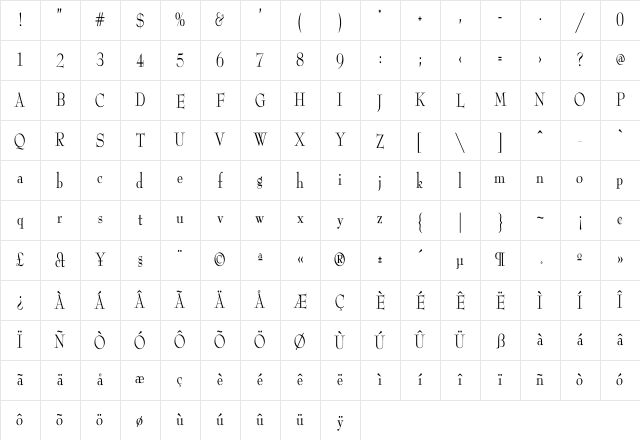
Complete ReedFont Cn Regular glyph index. Displaying only characters natively supported by ReedFont Cn Regular font.
ReedFont Cn is a composed and adaptable typeface that performs quietly and consistently across a wide range of design contexts.